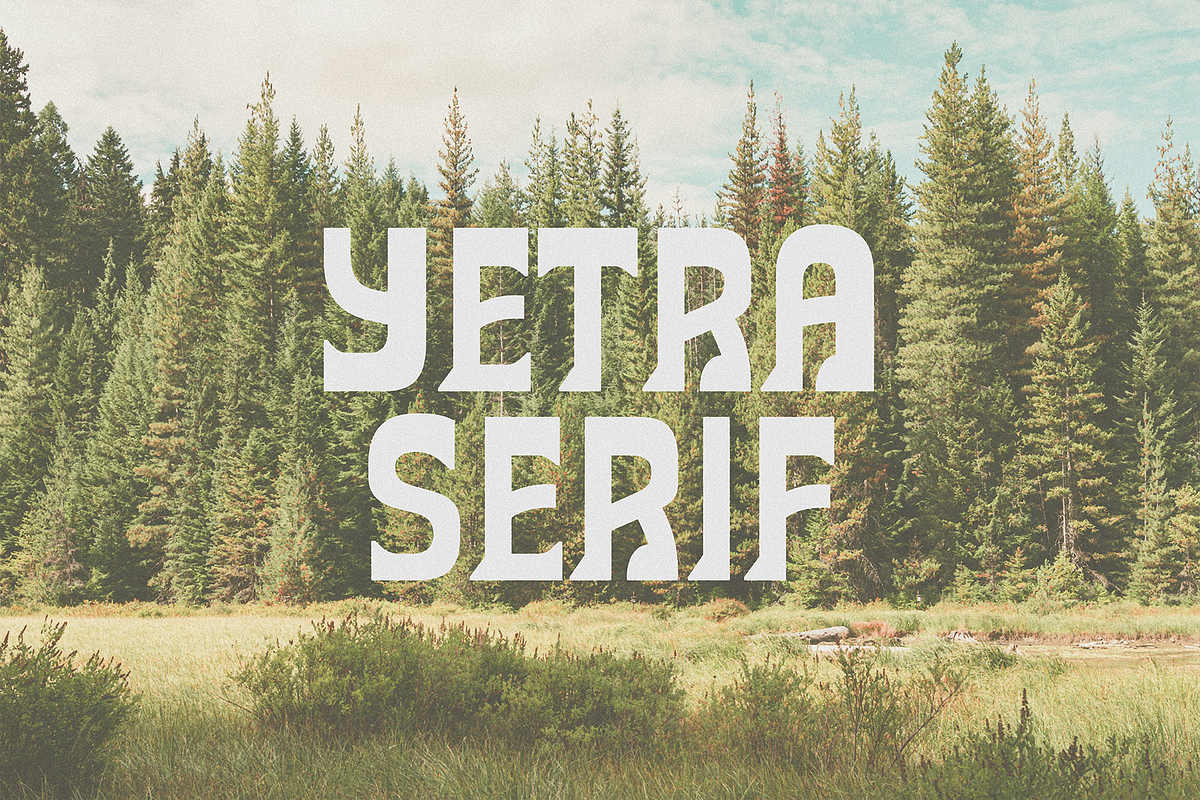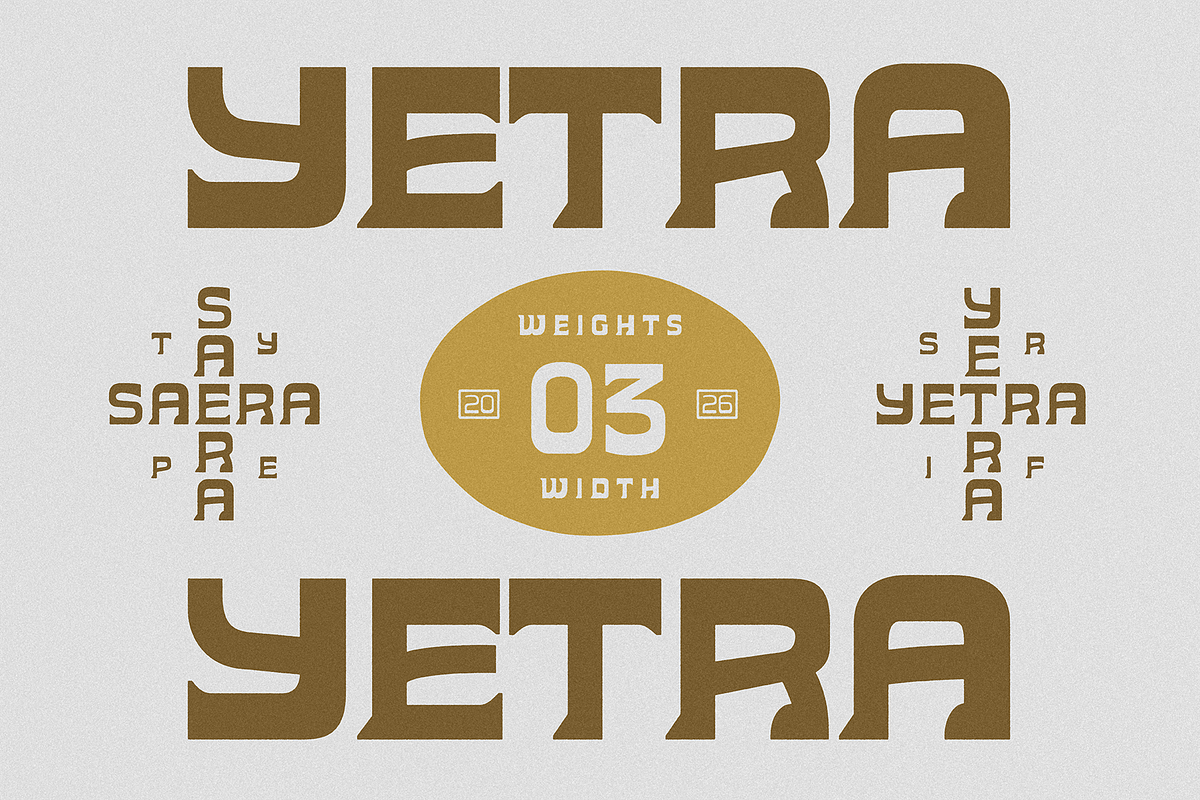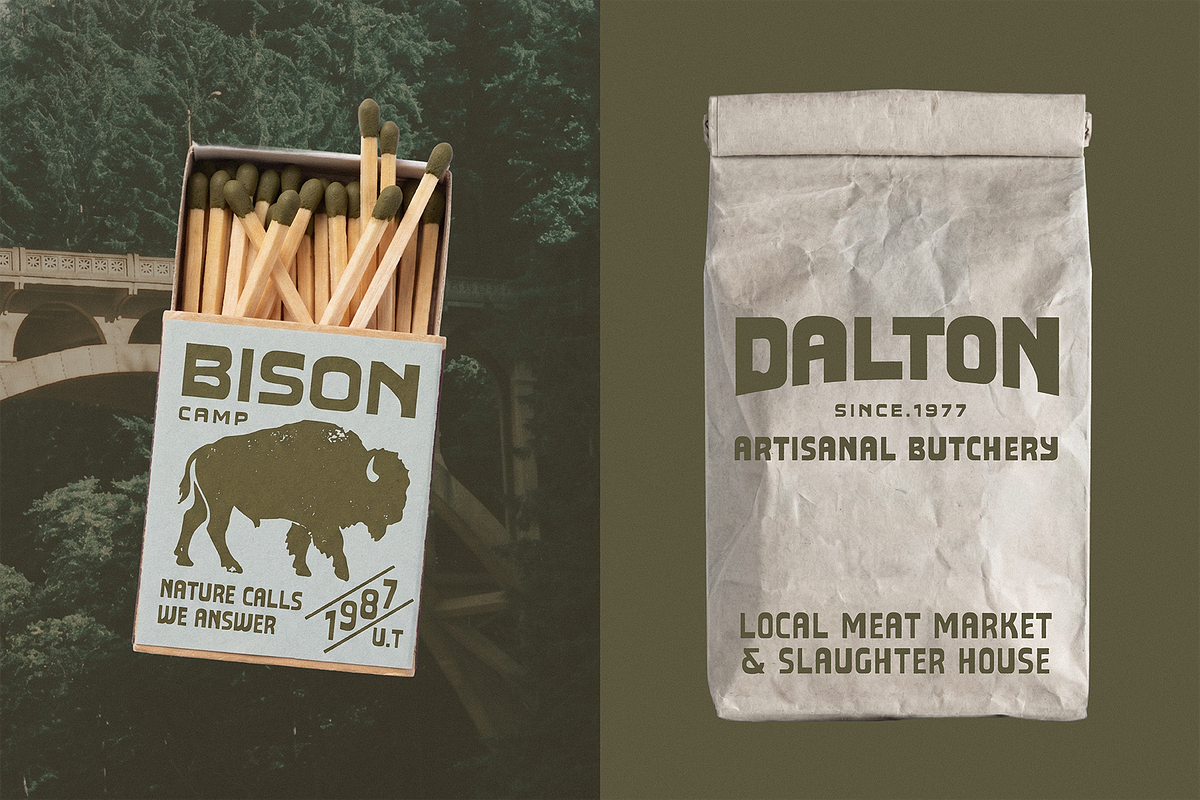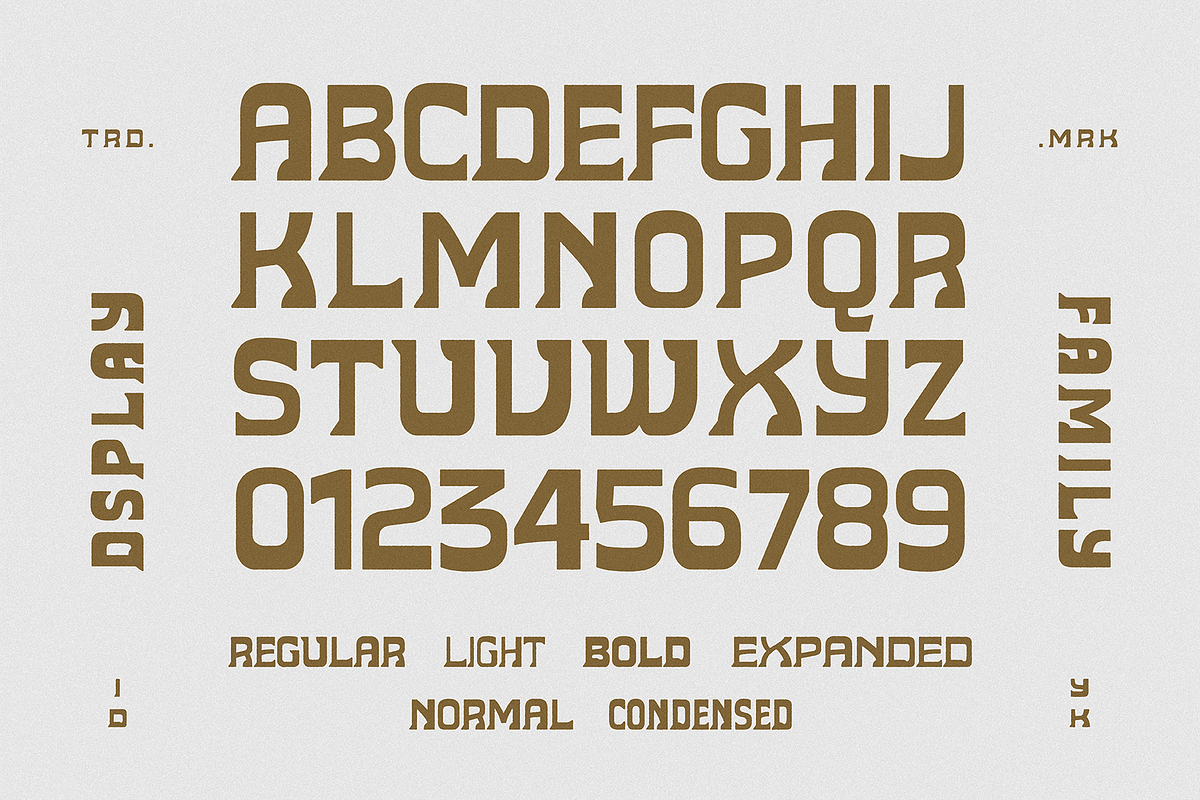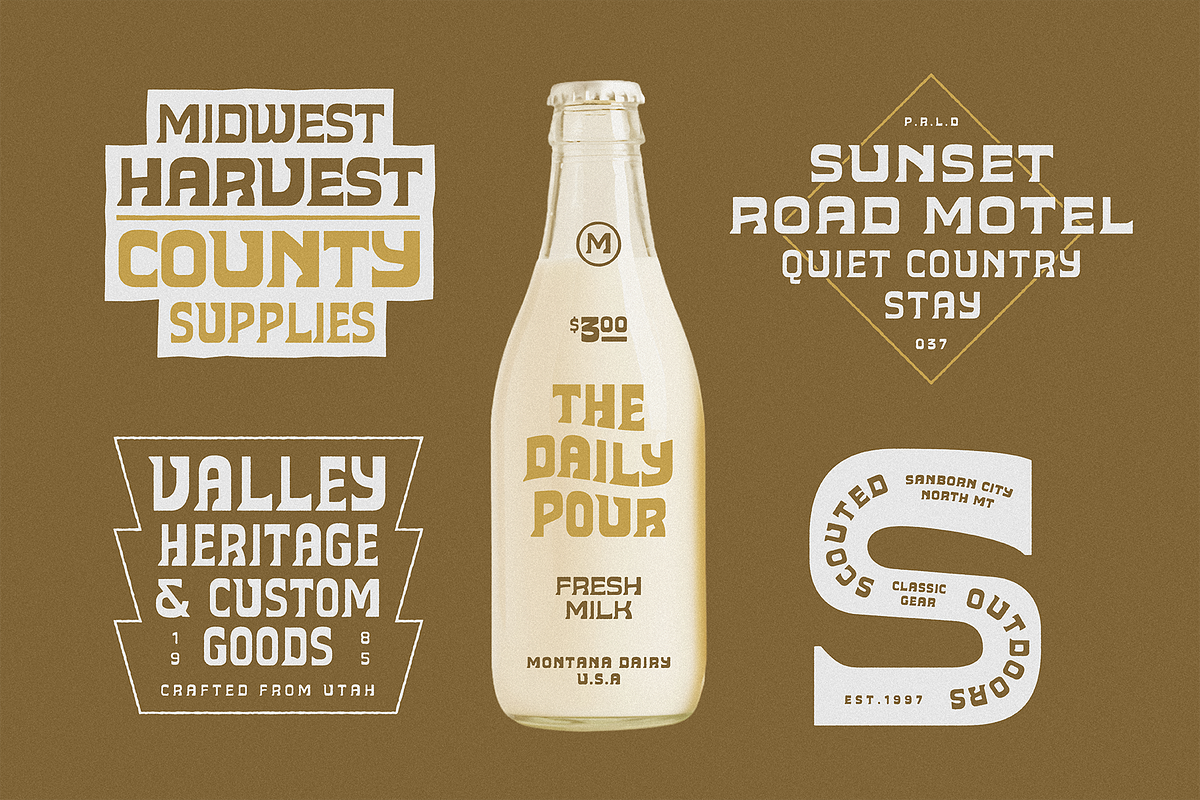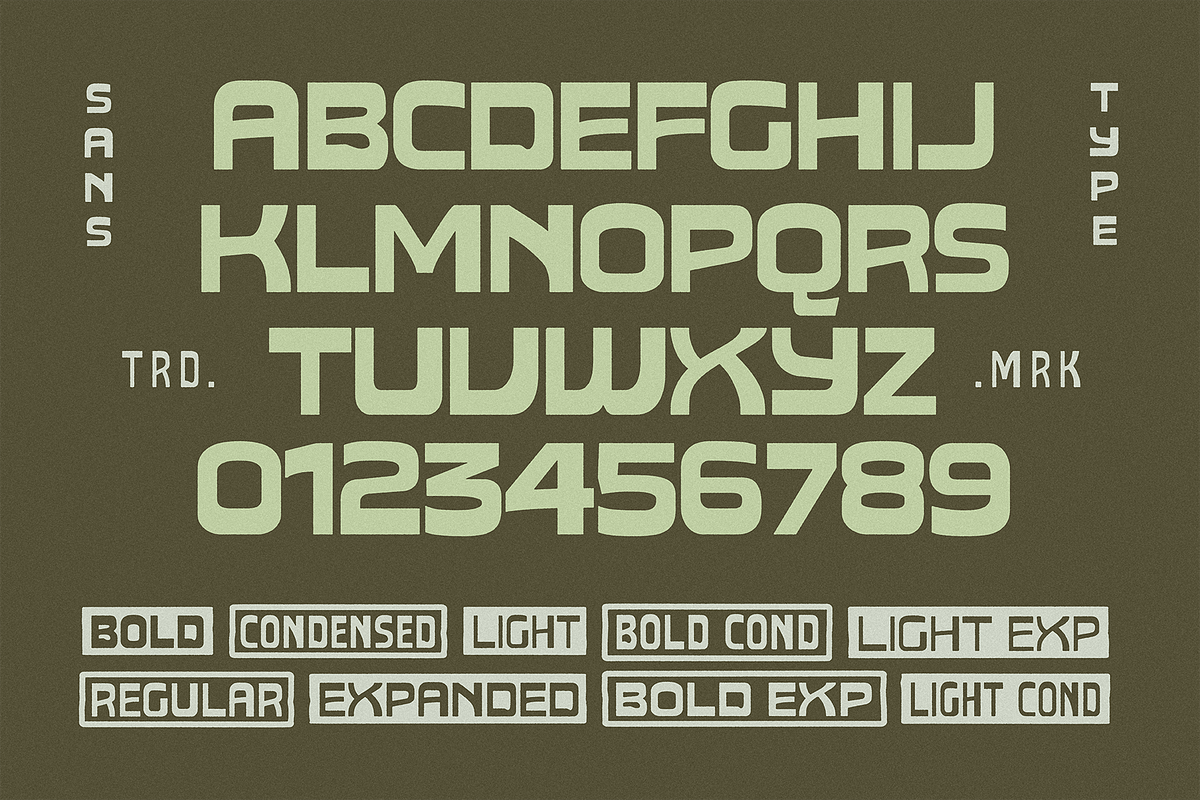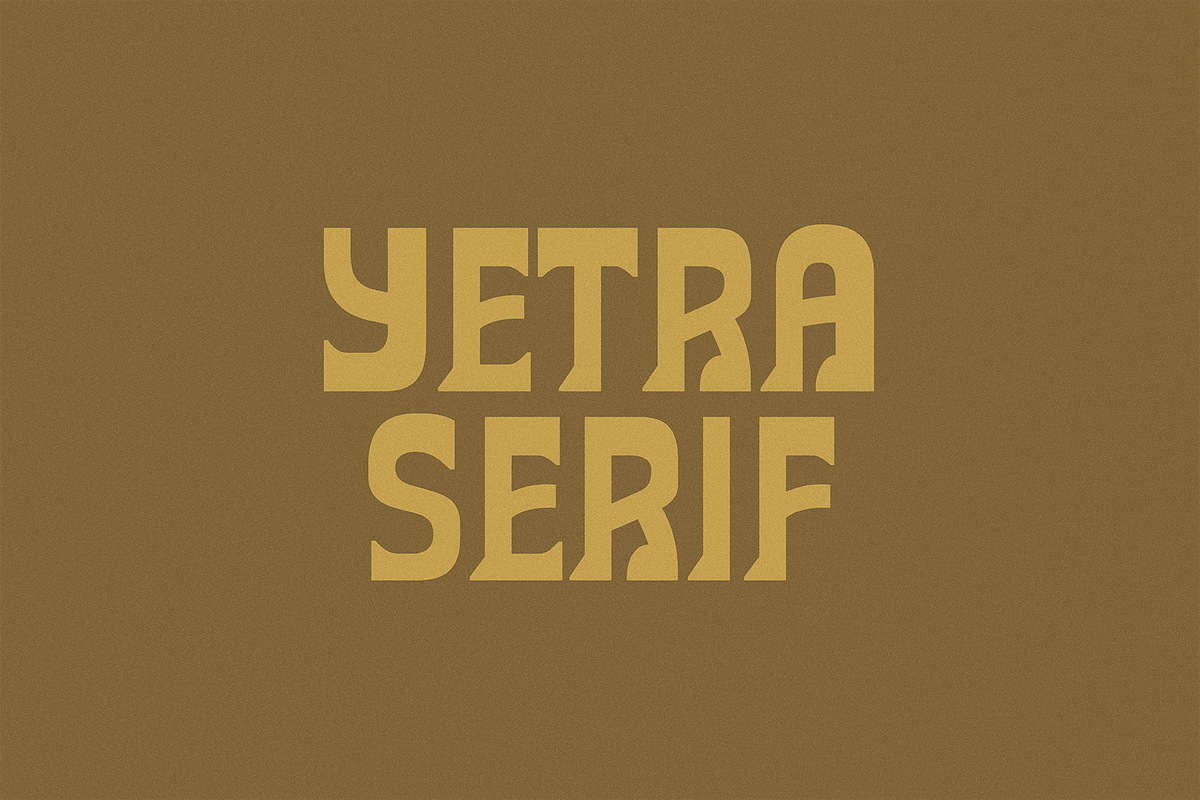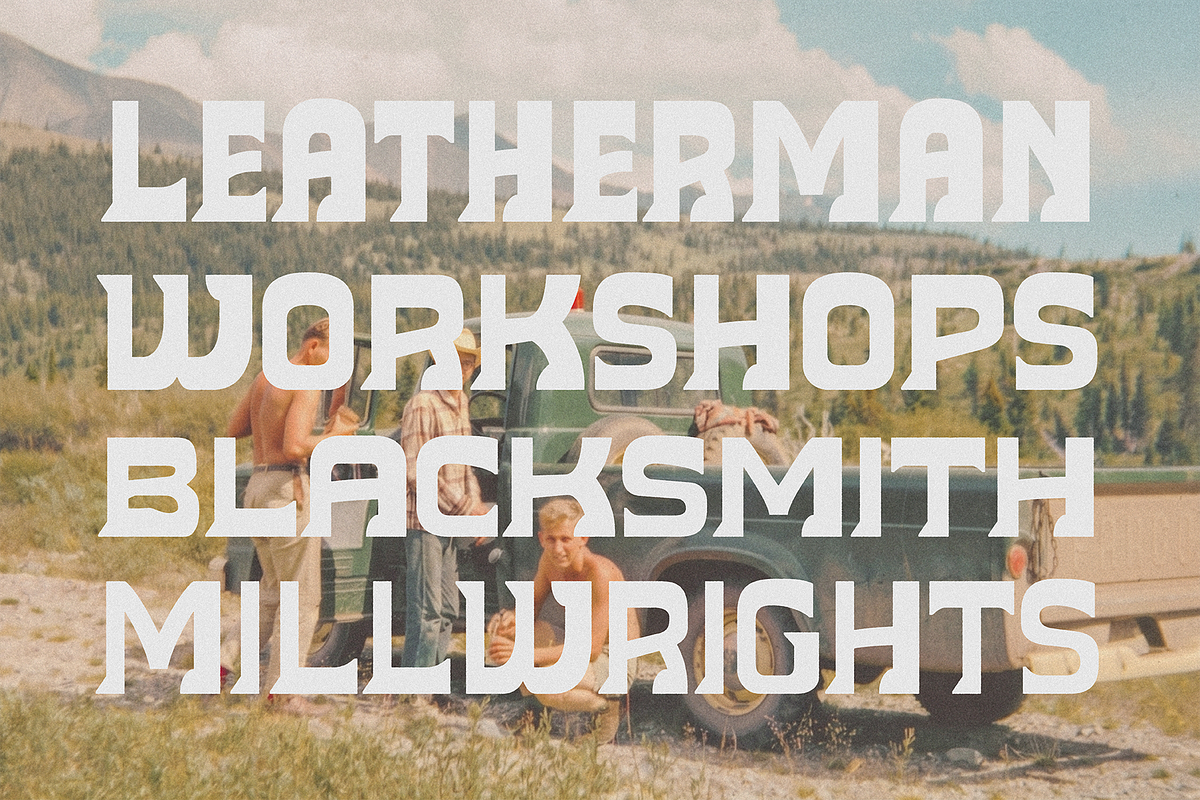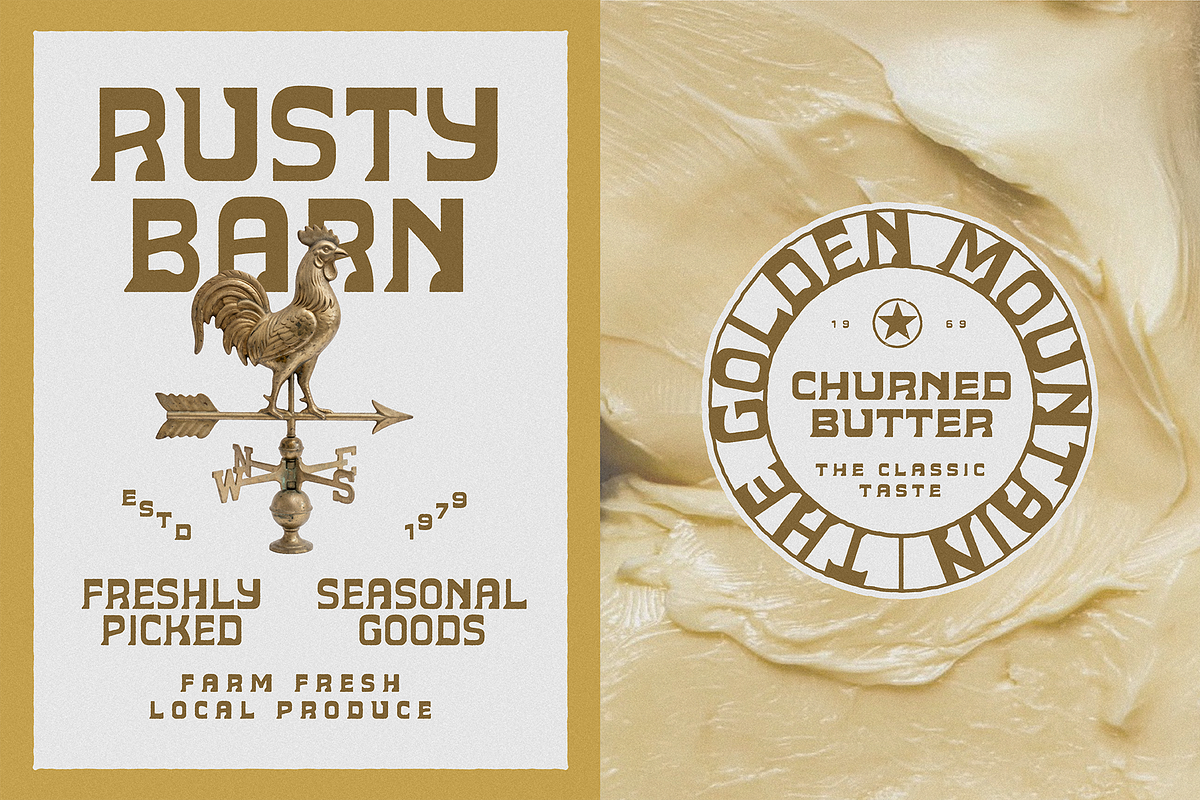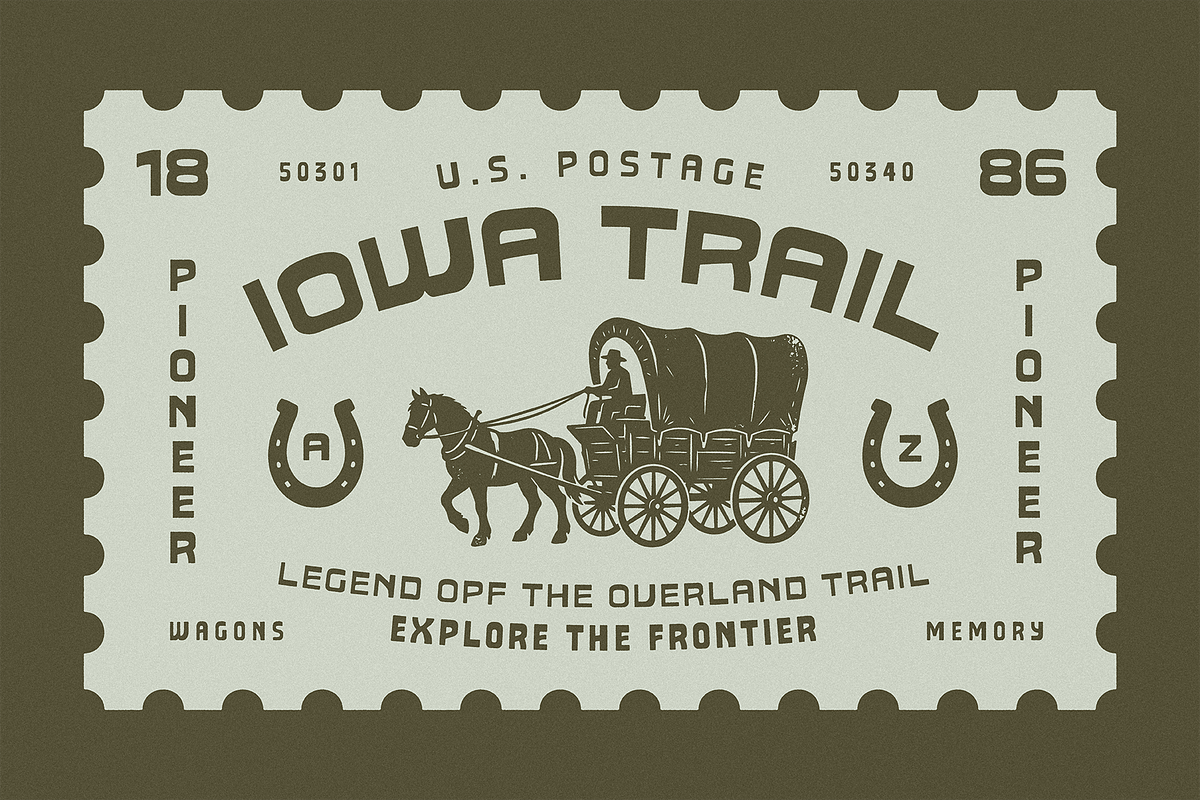
SAE YETRA - Artisan Sans & Serif
Introducing Yetra Family, a bold and distinctive serif typeface inspired by heritage craftsmanship, artisan workshops, handcrafted goods, and timeless hospitality branding.
Built with strong architectural shapes, sculpted terminals, and unique carved details, Yetra delivers a memorable visual presence while maintaining elegance and readability.
The family includes 18 styles across 3 widths and 3 weights, giving designers the flexibility to create cohesive visual systems for branding, packaging, editorial design, and premium marketing materials.
Whether you're building a boutique hotel identity, artisan product packaging, coffee brand, restaurant concept, furniture workshop, ceramic studio, or luxury lifestyle brand, Yetra brings authenticity, craftsmanship, and character to every project.
Its bold personality and heritage-inspired construction make it particularly effective for logos, headlines, packaging, signage, and brand identities that need to feel handcrafted, established, and premium.
Display Sans Typeface Family
Geometric Industrial Letterforms